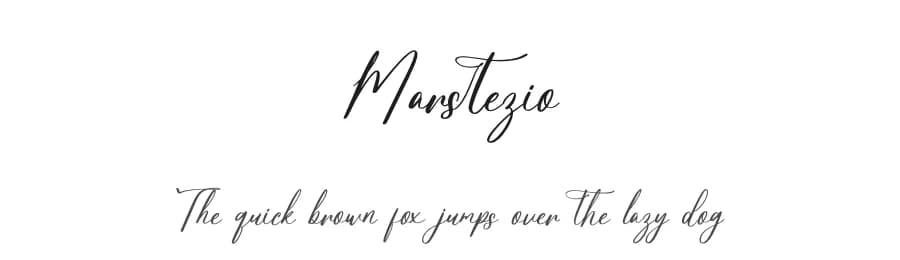
About Marstezio Font
Marstezio Font is a script font that shines as a display or heading face. Pair it with a clean sans-serif or serif font for body text β the contrast creates a clear hierarchy while the two styles stay balanced and easy to read.
Marstezio Font